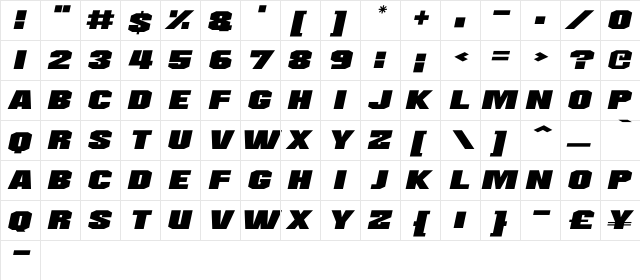
Supernovas Italic
Design Context for Supernovas Typeface
Supernovas is a composed and adaptable typeface that performs quietly and consistently across a wide range of design contexts. The slanted form adds forward momentum and visual energy.
Pro Tip: Use Supernovas for emphasis, pull quotes, and subheadings where its slanted energy can add rhythm to the layout.